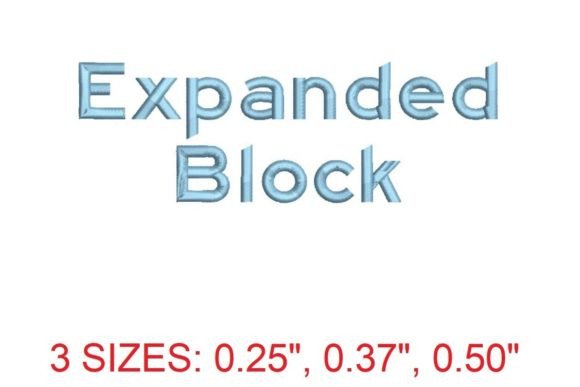
Expanded Block Font: A Bold Choice for Embroidery Enthusiasts
Expanded Block Font is a distinctive embroidery design that stands out with its bold and modern lettering. This font is ideal for those looking to add a touch of sophistication and individuality to their stitching projects. Whether you're a seasoned embroiderer or just starting out, Expanded Block offers a versatile and stylish option that can elevate your work.
Why Choose Expanded Block Font?
Expanded Block Font is particularly appealing to individuals who value both aesthetics and functionality in their embroidery designs. Its clean lines and strong visual impact make it perfect for monograms, decorative accents, and personalized creations. The font's design allows for easy customization, making it a popular choice among crafters who want to express their unique style.
One of the key reasons people are drawn to Expanded Block Font is its versatility. It works well across various applications, from simple text embroidery to more complex patterns. The font's structure ensures that each letter maintains its integrity, even when scaled up or down, which is essential for maintaining clarity and readability in different sizes.
Benefits of Using Expanded Block Font
Using Expanded Block Font comes with several advantages. First and foremost, it provides a modern and sophisticated look that can enhance any embroidery project. The font’s boldness makes it stand out, which is especially useful for creating eye-catching designs on garments, home décor items, and other creative projects.
Additionally, Expanded Block Font is designed with meticulous stitch work and flawless digitization. This means that each creation showcases impeccable craftsmanship, ensuring that the final product meets high standards of quality. The attention to detail in the digitization process also contributes to the font's reliability and consistency, making it a trusted choice for both beginners and experienced embroiderers.
Considerations and Tradeoffs
While Expanded Block Font has many strengths, it's important to consider its limitations. One potential tradeoff is that the bold nature of the font may not be suitable for all types of projects. For instance, if you're working on a delicate fabric or a design that requires subtlety, a more refined font might be a better fit.
It's also worth noting that while Expanded Block Font is highly customizable, the complexity of the design may require some practice and patience, especially for those new to embroidery. Taking the time to familiarize yourself with the font's characteristics can help you achieve the best results.
Situations Where Expanded Block Font Excels
Expanded Block Font is particularly well-suited for projects that require a strong visual statement. Monograms, name tags, and decorative accents are excellent applications where the font's boldness and modern appeal shine through. It's also ideal for creating personalized gifts, such as embroidered towels, pillowcases, and clothing items.
The font's adaptability makes it a great choice for both small and large-scale projects. Whether you're working on a single piece or a series of items, Expanded Block Font can be scaled and customized to fit your specific needs. Its consistent structure ensures that each letter remains clear and legible, regardless of the size at which it's applied.
When to Consider Alternatives
While Expanded Block Font is an excellent choice for many projects, there are situations where alternatives may be more appropriate. For example, if you're looking for a more elegant or classic look, a serif font might be a better fit. Similarly, if you're working on a project that requires intricate detailing, a more ornate font could provide a richer visual experience.
Additionally, if you're focusing on a minimalist design, a simpler font with cleaner lines might be preferable. It's important to evaluate your project's requirements and choose a font that aligns with your overall vision and goals.
Practical Insights for Decision-Making
When deciding whether to use Expanded Block Font, consider your project's purpose, the intended audience, and the desired aesthetic. If you're aiming for a bold and modern look, Expanded Block is an excellent choice. However, if you need a more subtle or traditional appearance, exploring other options may be beneficial.
In conclusion, Expanded Block Font offers a unique blend of style, functionality, and versatility that can elevate your embroidery projects. By carefully evaluating your needs and considering the font's characteristics, you can determine whether it's the right choice for your creative endeavors.